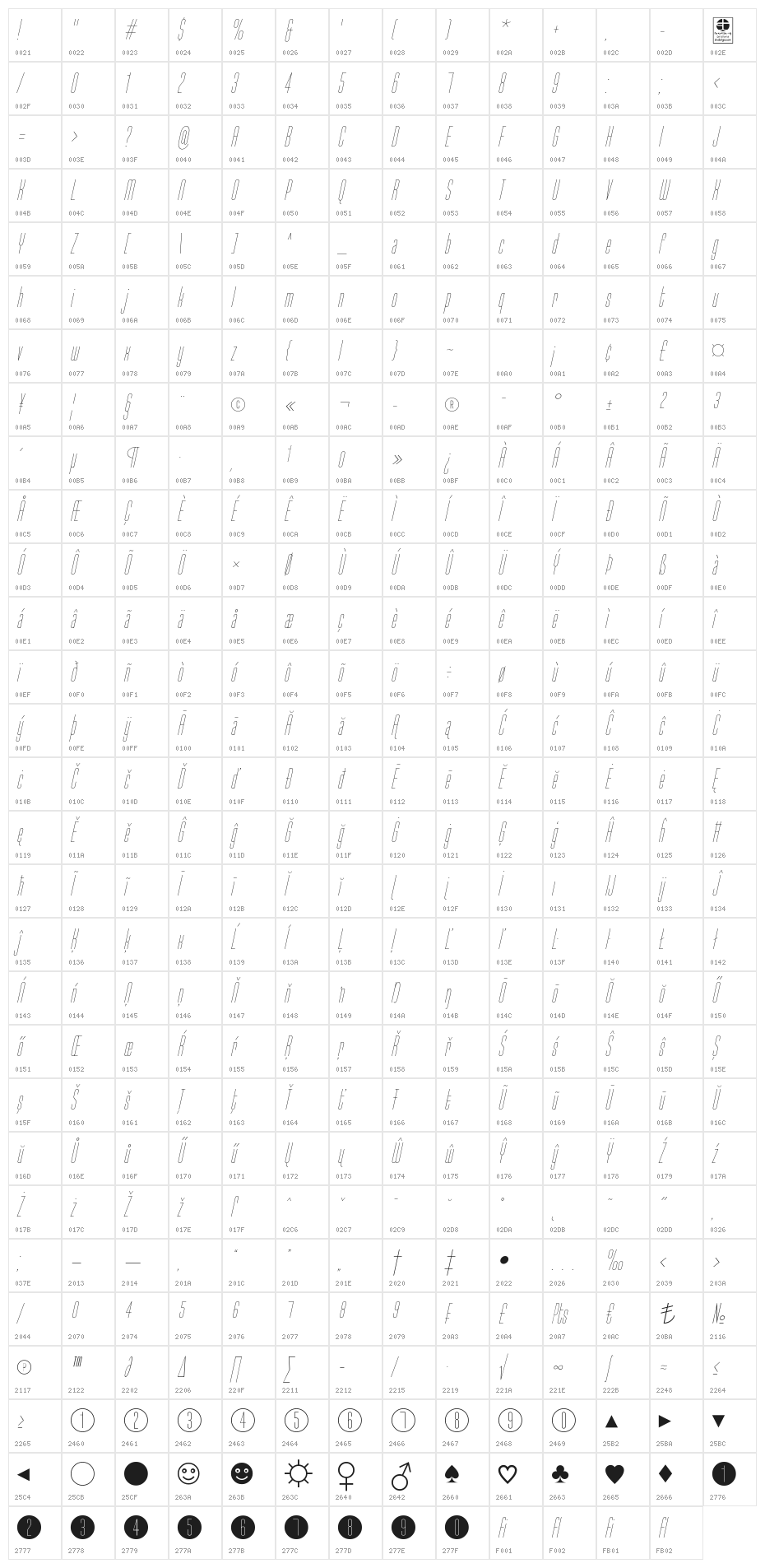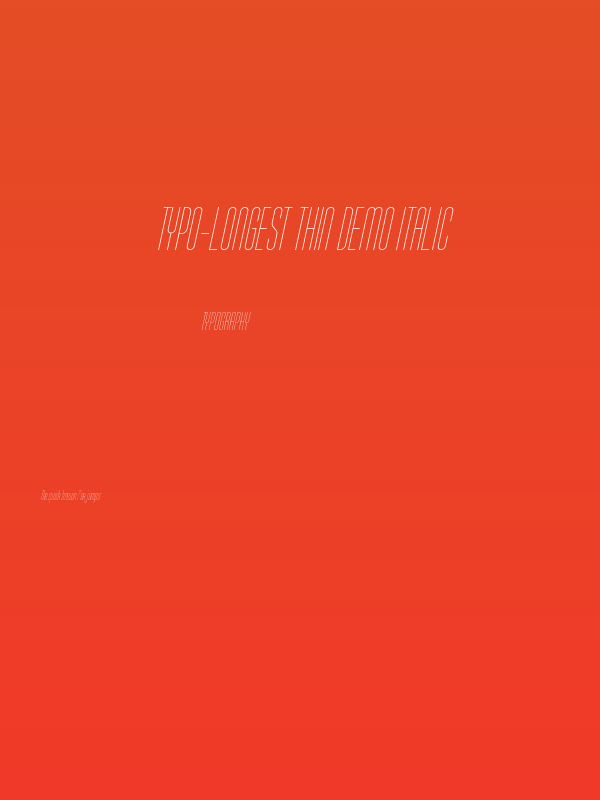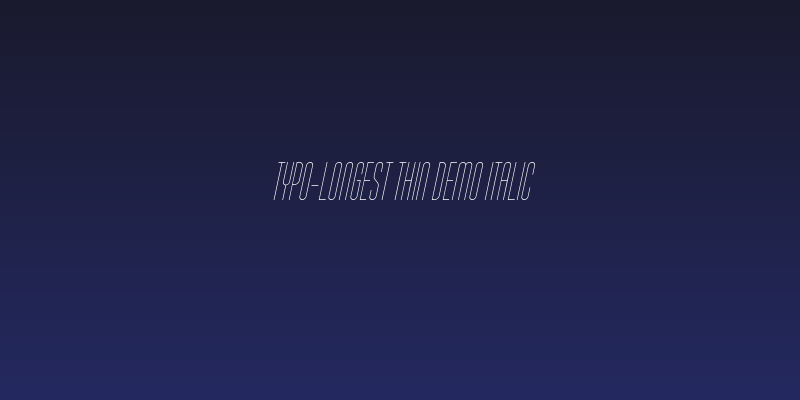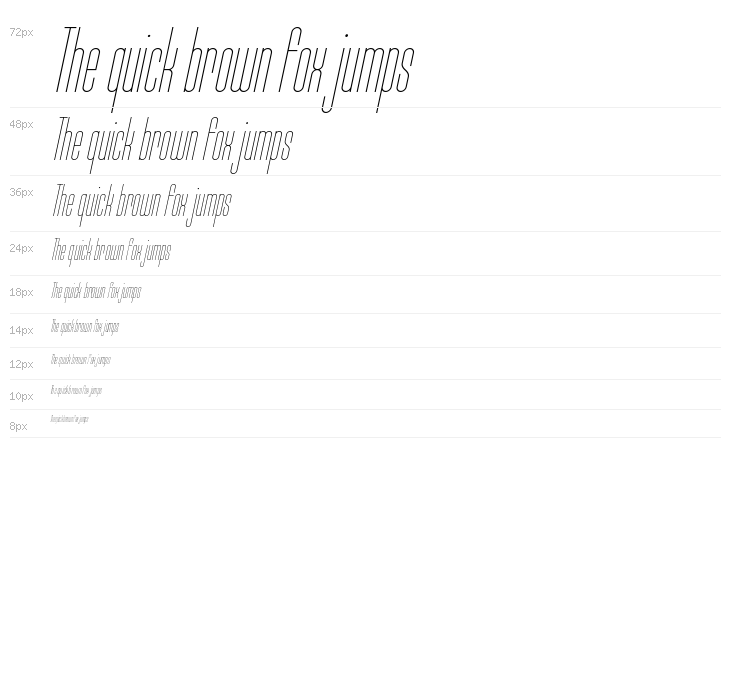
Typo-Longest Thin Demo Italic Font
Typo-Longest Thin Demo Italic Description
This font features an elongated and slender design with a distinct italic slant, giving it a sleek and modern appearance. The characters are narrow with a consistent thin stroke, contributing to a sophisticated and elegant look. The uppercase and lowercase letters maintain a uniform height, enhancing readability while preserving a stylish flair. The numerals and special characters follow the same thin and elongated style, ensuring cohesion across all elements. This font's minimalistic approach makes it suitable for contemporary design projects that require a touch of elegance and modernity.